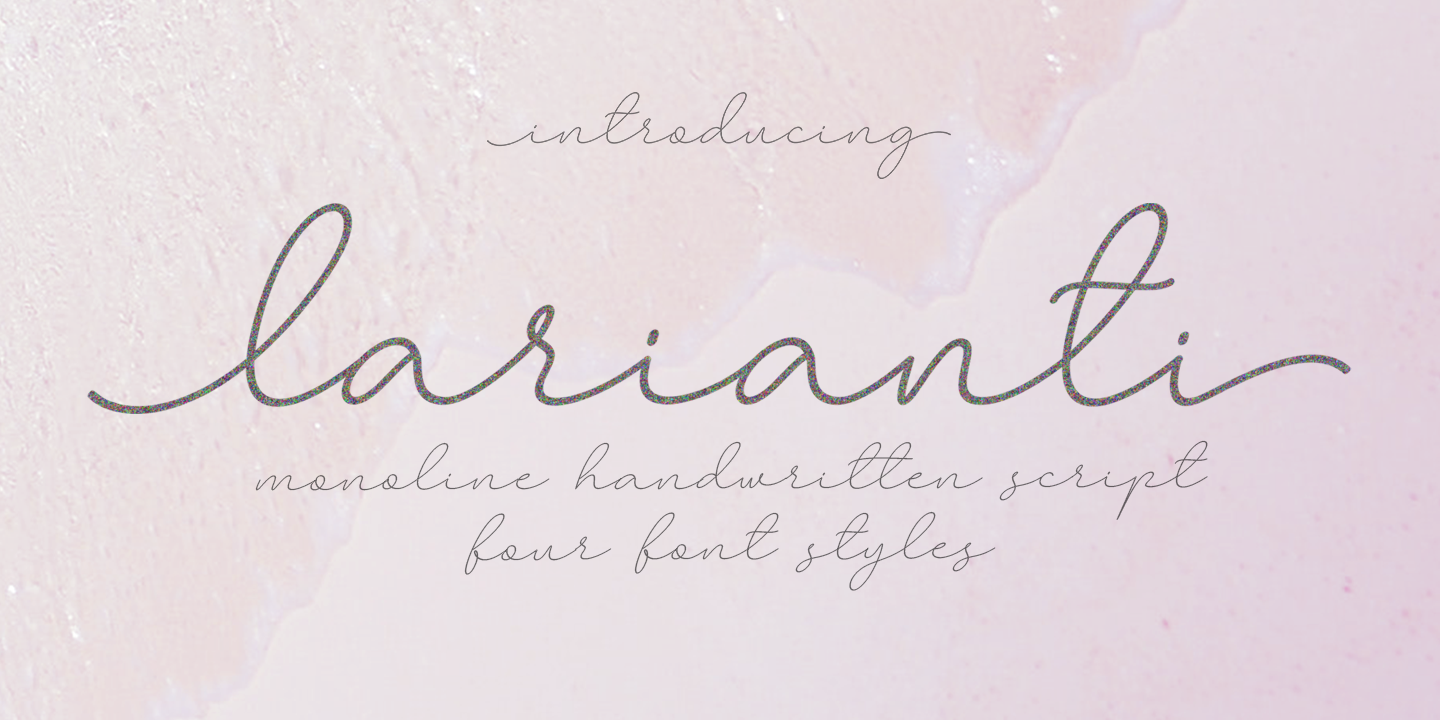
Larianti Font is ideal for elegant fashion magazines, luxury boutique branding, sophisticated wedding invitations, high-end cosmetics packaging, premium jewelry marketing, upscale restaurant menus, exclusive spa materials, refined art gallery exhibitions, cultured lifestyle publications, and distinguished corporate communications. This graceful typeface excels in applications where refined elegance and sophisticated charm need to be communicated with timeless beauty and aristocratic grace that embodies the finest traditions of European design sophistication.
What makes Larianti Font exciting is its extraordinary ability to convey aristocratic elegance and refined sophistication through its beautifully proportioned letterforms that seem to dance with the grace of classical ballet and the poise of haute couture fashion. The font embodies the essence of timeless refinement with its flowing construction and noble proportions that suggest centuries of cultural sophistication and artistic heritage. Its meticulously crafted character details and elegant personality create an atmosphere of cultivated luxury that resonates with discerning audiences who appreciate the finer things in life and understand true quality.
The Larianti Font family typically includes Light, Regular, Medium, and Bold weights, each maintaining the signature elegance and sophisticated characteristics. Some versions offer graceful Italic variants with enhanced flowing elements, decorative swashes that amplify the luxurious aesthetic, and ornamental characters that provide additional creative possibilities. The family may also include Small Caps, Old Style Figures, and extended international character sets for multilingual luxury communications requiring consistent elegance across cultures.
Whether you're creating luxury brand identities, sophisticated lifestyle materials, or elegant cultural communications, Larianti Font Free Download delivers the perfect aristocratic refinement your premium projects deserve. Its sophisticated character and elegant styling make it an invaluable asset for luxury brands, cultural institutions, and high-end service providers working in fashion, hospitality, and luxury goods sectors where authentic sophistication and timeless elegance are essential for attracting discerning clientele who demand the highest standards of aesthetic excellence.